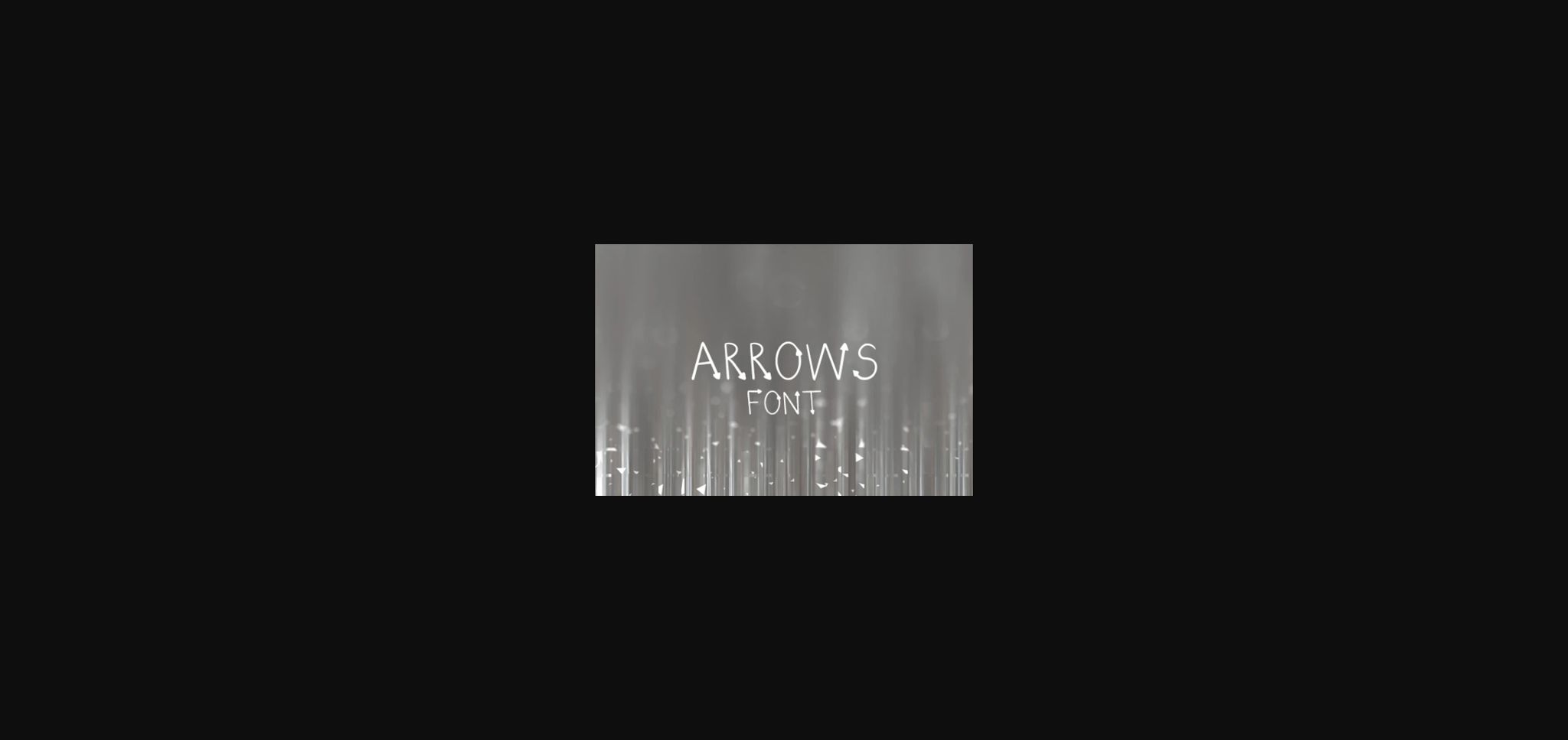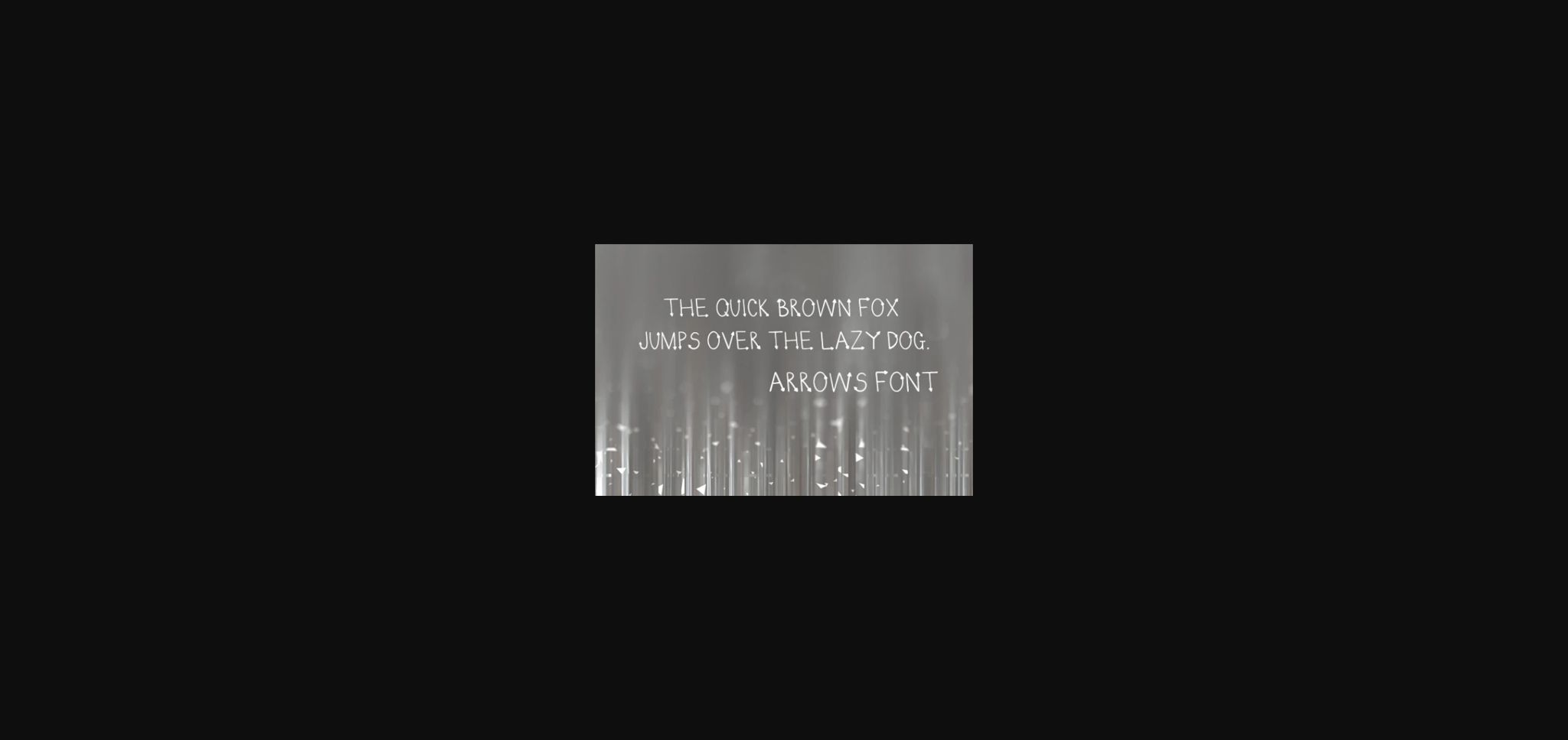
HomeSans Serif FontsArrows Font Sans Serif Fonts Arrows Font FacebookXPinterestWhatsApp 1 of 4 ... Arrows Font Poster 2... Arrows Font Poster 3... Arrows Font Poster 4... About Arrows Font Arrows is a lovely sans serif font. It will complement any design need perfectly with its perfectly balanced mix of the smooth and sharp! DOWNLOAD NOW People also explored Malwrence Font Rochette Font Bear Font Ankle Biter Print Font Tommorow Font Erlinka Hillary Font The Monstain Font Flower Pattern Font Alaysa Font 357 0 TagsArrowsArrows Font Previous articleKumba Scrawl FontNext articleAristo Hatched Font LEAVE A REPLY Cancel reply Comment: Please enter your comment! Name:* Please enter your name here Email:* You have entered an incorrect email address! Please enter your email address here Website: Save my name, email, and website in this browser for the next time I comment. Personal Use Free Makcex Personal Use Free Read more about this font Harmony Personal Use Free Read more about this font Wildwest Personal Use Free Read more about this font Roland Personal Use Free Read more about this font BLOG Exploring Font Trends Shaping Communication in the Digital Era Fonts, like all design elements, are subject to trends. They play a crucial role in communicating a brand's personality,... Modern Sans-Serif Fonts That Brands Love in 2025 Transform Your Website: Elevate Your Typography with 7 Best Web Font Generators To increase your work productivity, choose the most readable fonts.